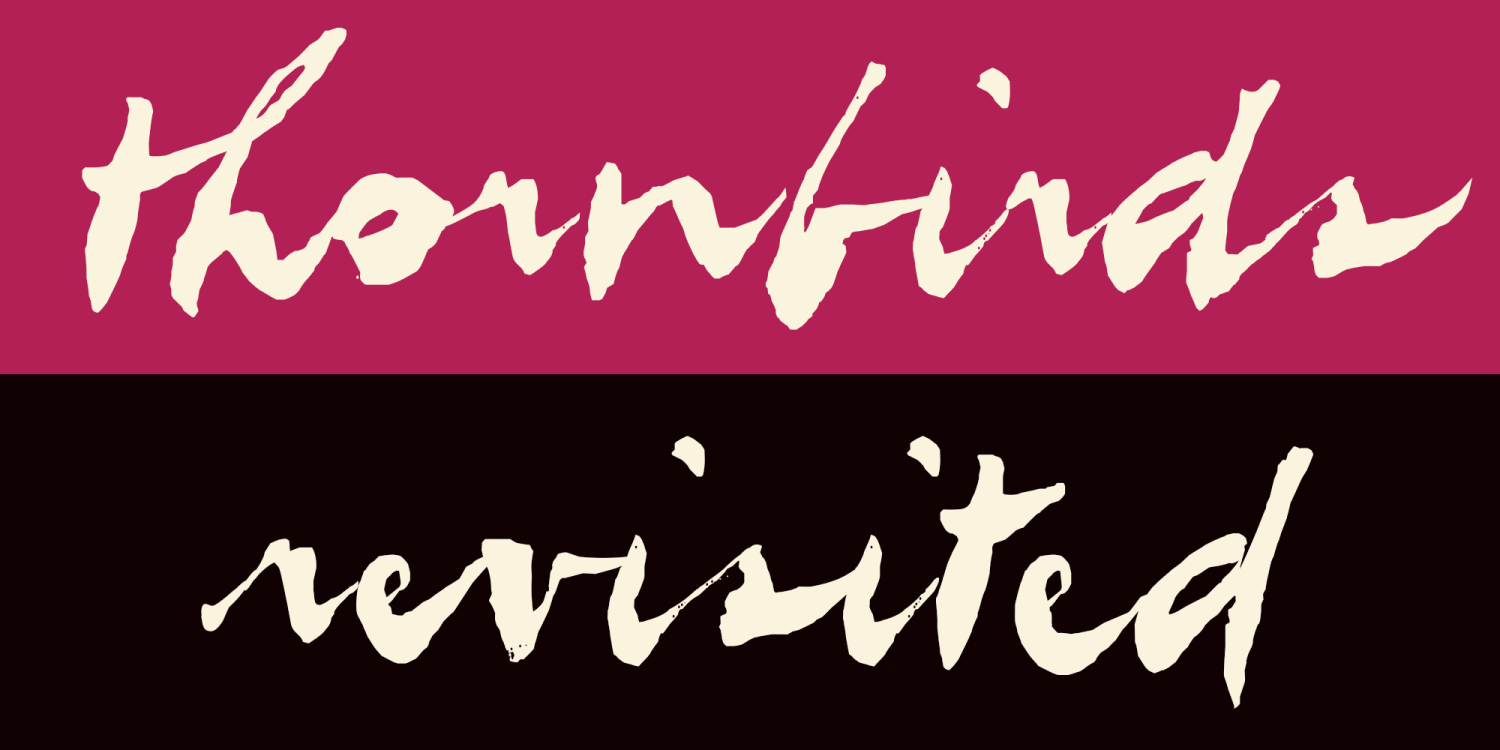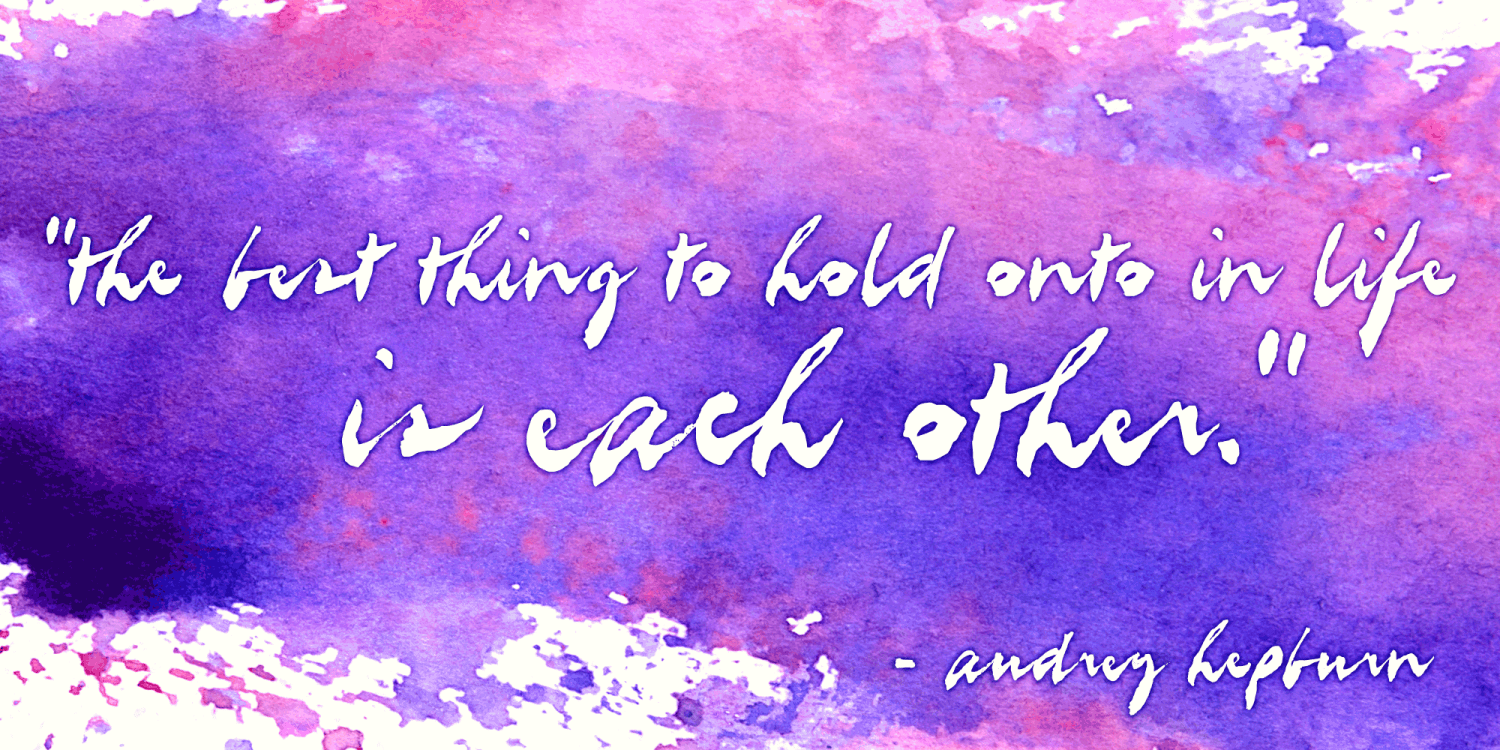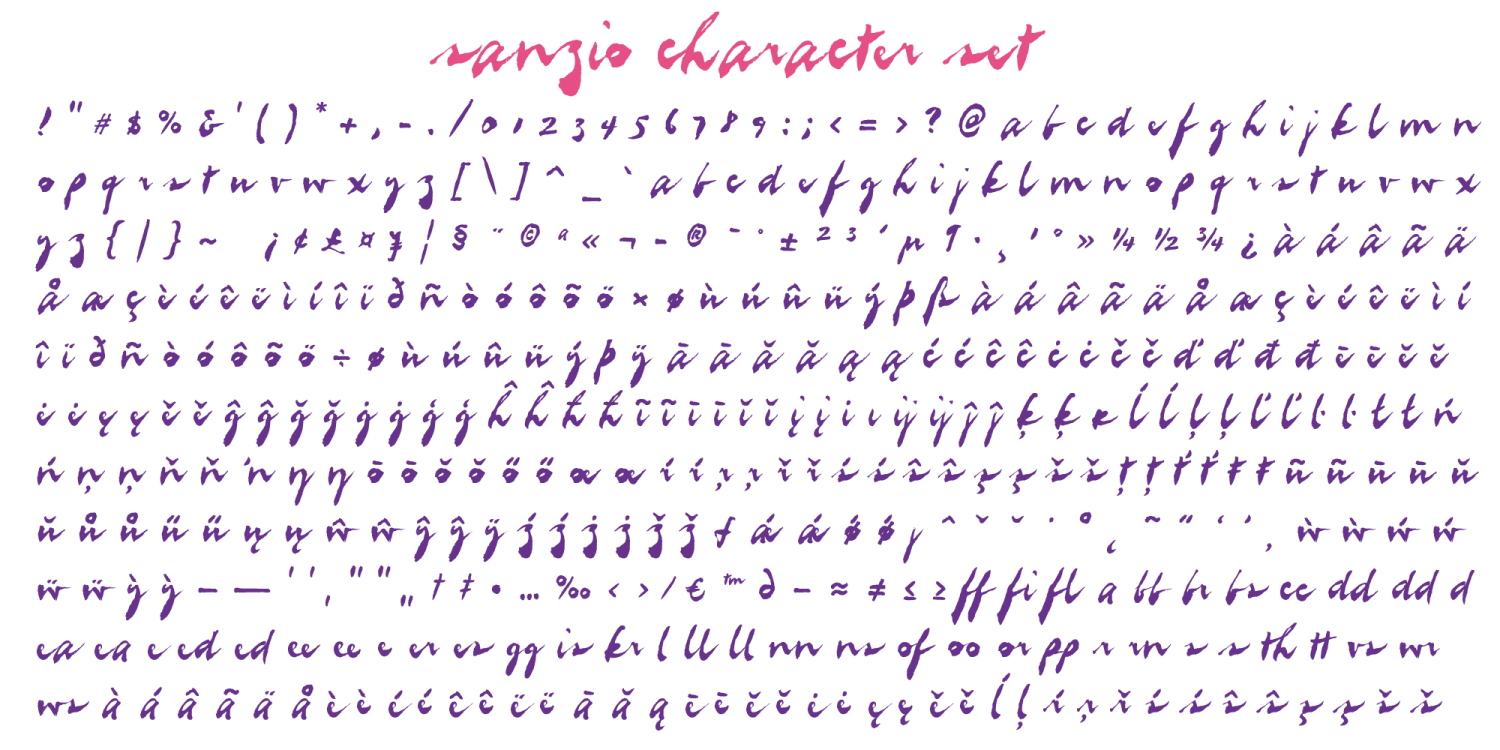
About Sanzio
Ever since I was young, the allure of brush lettered scripts has captivated me. There's an inherent expressiveness in every stroke, a dash of personality that transforms mere words into visual masterpieces. The graceful flick of the wrist can breathe…